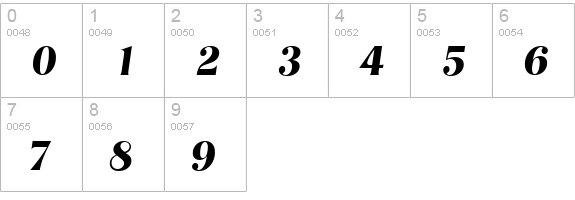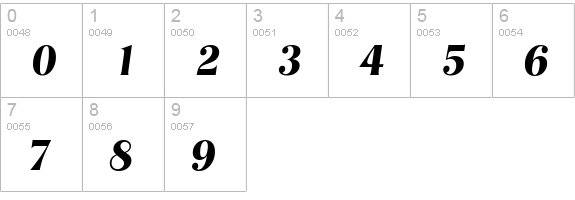
NashvilleSerial-BoldItalic font is a striking and stylish typeface that exudes confidence and sophistication. Its bold and italic design commands attention and makes a statement in any setting. Perfect for headlines, titles, and branding materials, this font adds a touch of elegance to your projects. What sets NashvilleSerial-BoldItalic apart is not only its impressive appearance but also its versatility. Whether you're designing a magazine layout, creating a logo, or crafting a poster, this font will elevate your work to the next level. And the best part? NashvilleSerial-BoldItalic is available for free download at FontsMarket.com. That's right, you can add this stunning font to your collection without spending a dime. Don't miss out on the opportunity to enhance your designs with this exceptional typeface – download NashvilleSerial-BoldItalic now and let your creativity soar.